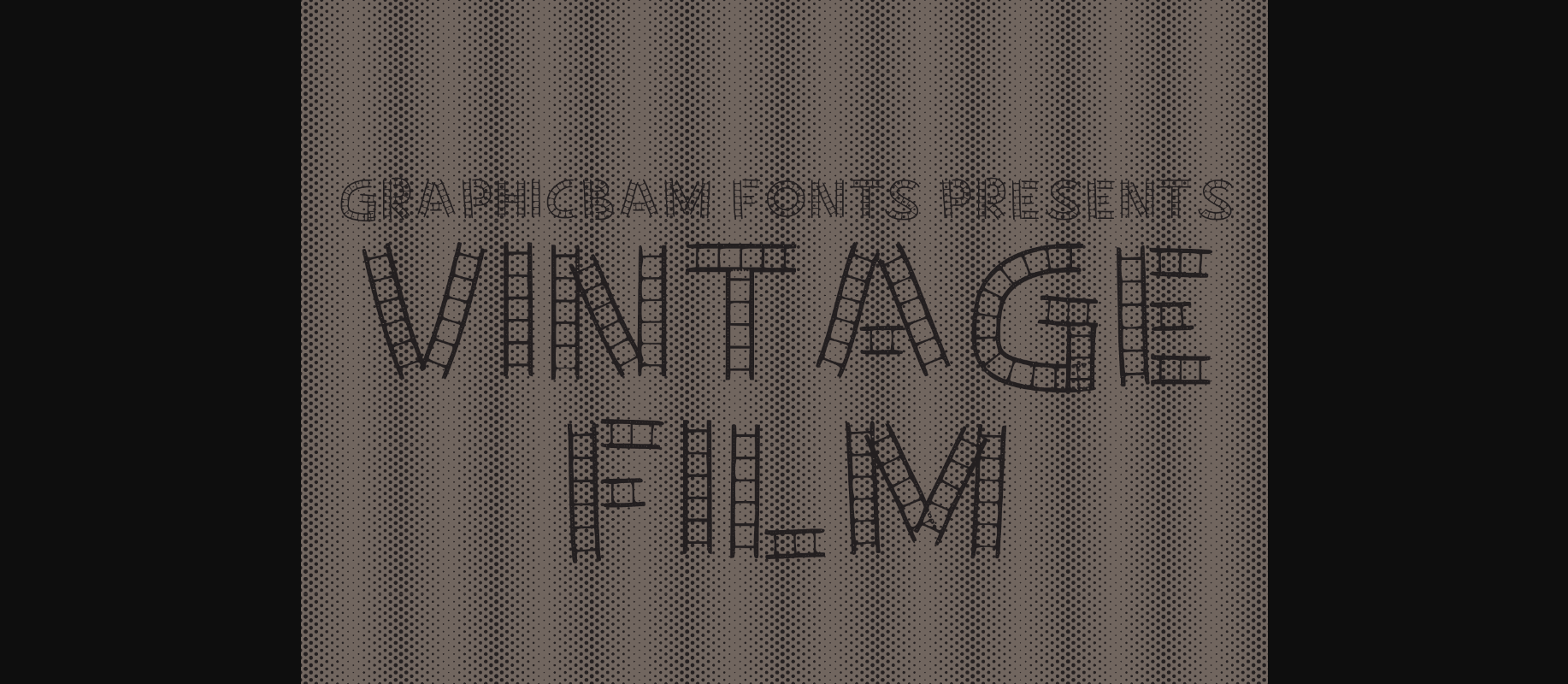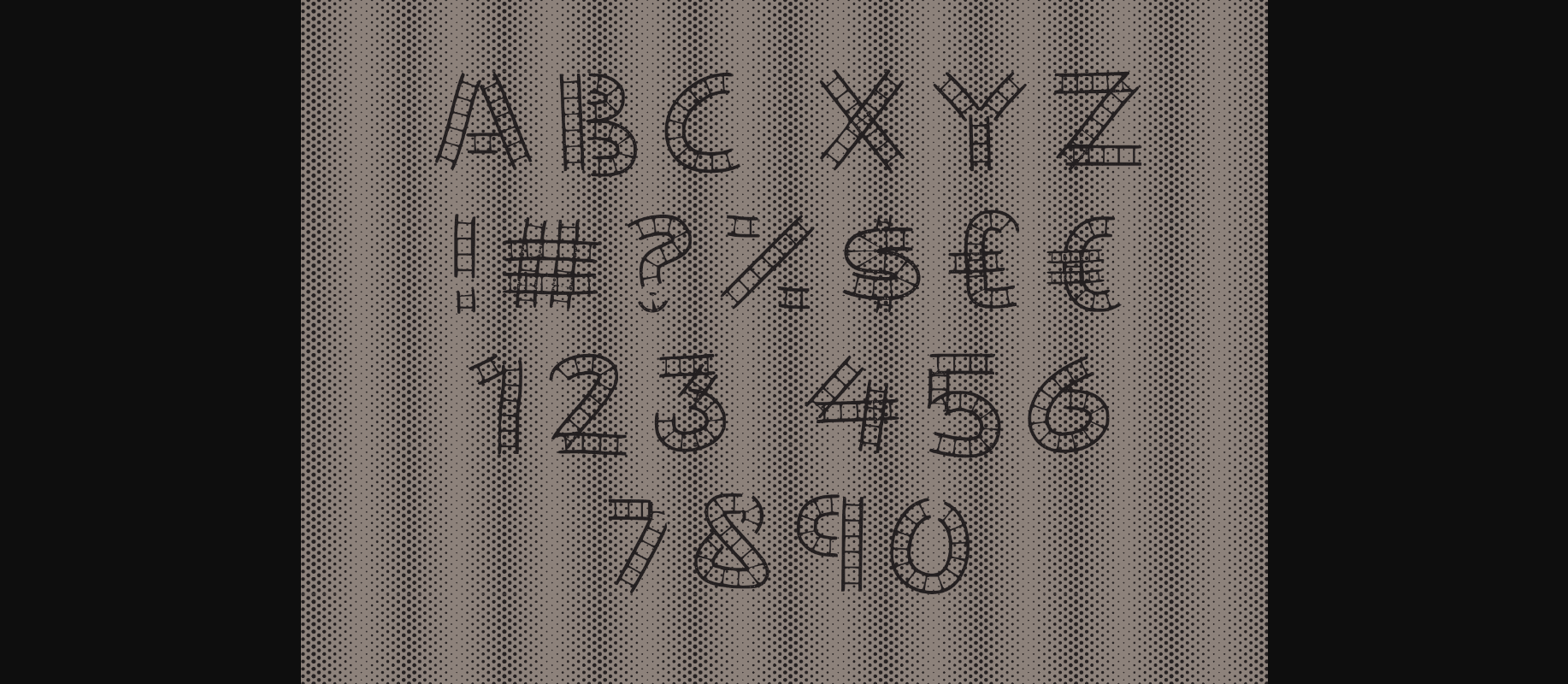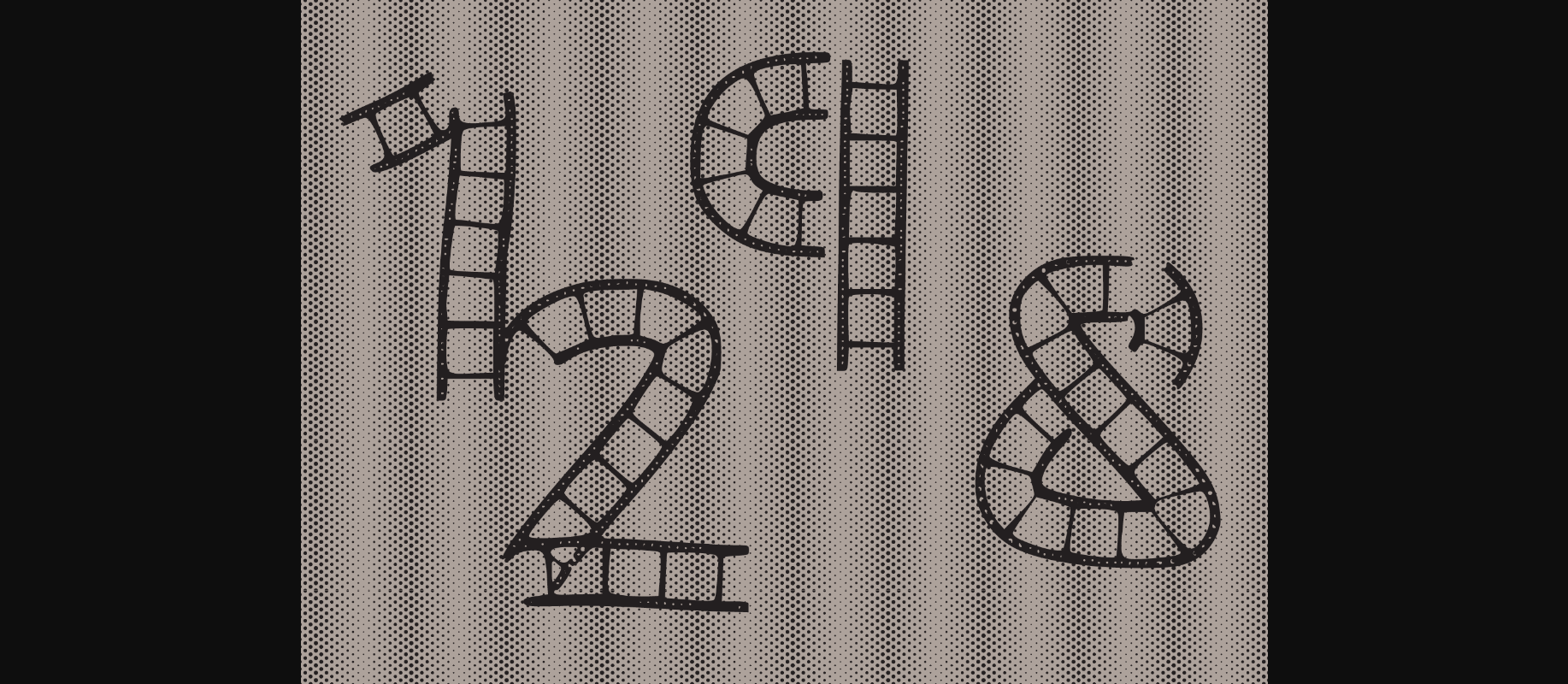
HomeDecorative FontsVintage Film Font Decorative Fonts Vintage Film Font FacebookXPinterestWhatsApp 1 of 5 ... Vintage Film Font Poster 2... Vintage Film Font Poster 3... Vintage Film Font Poster 4... Vintage Film Font Poster 5... About Vintage Film Font Vintage Film is a fun decorative font, with characters created out of an old cinema film. Add a playful touch to your designs with this unique font! DOWNLOAD NOW People also explored Present Day Font Marshynha Lovelytta Font Everleigh Font Cooling Font Missing You Font Viewpoint Font Brilliant Mastaka Font Berrta Font Unique Richela Font 341 0 TagsVintage Film Font Previous articleElennia Monogram FontNext articleMy Cut of Tea Font LEAVE A REPLY Cancel reply Comment: Please enter your comment! Name:* Please enter your name here Email:* You have entered an incorrect email address! Please enter your email address here Website: Save my name, email, and website in this browser for the next time I comment. Personal Use Free 5cent Free Graffiti Personal Use Free Read more about this font Cleopatra Font Personal Use Free Read more about this font Deling Personal Use Free Read more about this font Historise Personal Use Free Read more about this font BLOG Using Fonts in Digital Marketing: Tips to Strengthen Your Brand Identity In the realm of digital marketing, every visual element plays a crucial role in shaping a brand's identity, and fonts are no exception. The... The 10 Best Handwriting Fonts to Add Personality to Your Designs Exploring Font Trends Elegant Wedding Invitation Fonts – Handwritten & Script Fonts